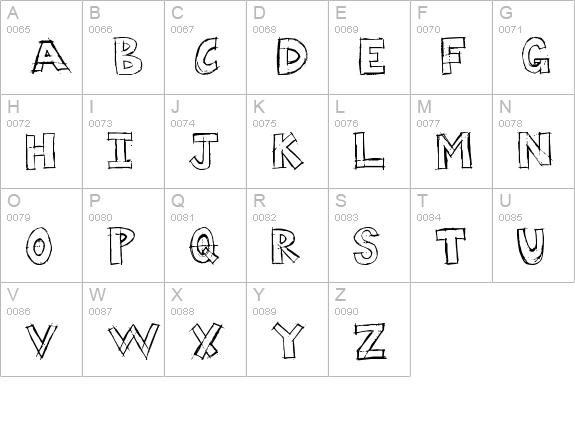
Dumpster Diver font is a unique and quirky typeface that captures the essence of urban exploration and creativity. With its rugged edges and uneven lines, this font exudes a sense of adventure and resourcefulness. Whether you're designing a grungy poster, a vintage logo, or a hipster-inspired project, Dumpster Diver font adds a touch of authenticity and character. Best of all, Dumpster Diver font is available for free download at FontsMarket.com. This means you can easily incorporate this one-of-a-kind font into your designs without breaking the bank. So go ahead and dive into the world of creativity with Dumpster Diver font - the perfect choice for those looking to add a touch of urban flair to their projects.